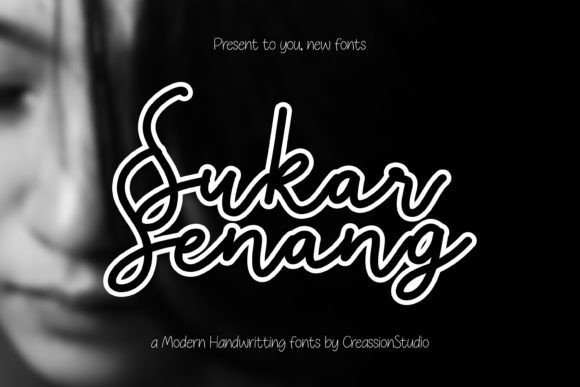
Why Sukar Senang Deserves a Place in Your Branding Toolkit
I remember the moment I first opened a blank brand board for a small café project. The client wanted something warm, personal, and slightly unexpected—a visual identity that felt like a handwritten note left on a coffee cup. That kind of brief calls for a typeface with personality, not a predictable sans serif. That’s when I started testing Sukar Senang, and honestly, it changed how I approached the entire project.
Sukar Senang is one of those Freebies that feels anything but free. It has a handcrafted, expressive quality that lands somewhere between a confident brush stroke and a friendly handwritten letter. The characters carry a natural rhythm, with slight variations in stroke weight that give them an organic, human feel. It is not trying to be perfect, and that is precisely why it works so well for branding projects that need warmth and approachability.
I loaded it into my design software and dropped it onto a logo draft—just the café name in lowercase, set against a simple icon. The result was immediate. The letters felt like they had been written by someone who cared, not generated by an algorithm. That is the kind of energy you want when you are building a brand from scratch.
First Impressions on a Logo Draft
When I test a new Font for client work, I start with the logo. It is the most visible part of a brand identity, and it sets the tone for everything else. Sukar Senang handled the headline treatment beautifully. Its open, airy letterforms kept the wordmark legible even at smaller sizes, which is not always the case with handwritten-style Fonts.
I tried it in all caps for a bolder statement, and then in title case for a more relaxed feel. Both worked, but the lowercase version had a quiet charm that felt right for a café that prides itself on slow mornings and good conversation. The font’s natural spacing meant I did not have to spend extra time kerning individual letter pairs. That saved me hours on a tight deadline.
For the café’s tagline, I paired it with a clean sans serif—something minimal that would not compete with the main headline. The contrast between the expressive Sukar Senang and the neutral supporting type created a clear visual hierarchy. The tagline sat quietly beneath the name, letting the brand name take center stage without feeling crowded.
Building a Full Brand Identity Around It
Once the logo was approved, I moved into the rest of the brand system. Sukar Senang proved to be more versatile than I initially expected. I used it on the café’s menu boards, where the friendly letterforms made the daily specials feel inviting rather than corporate. On the takeaway cup labels, the font added a personal touch that made customers feel like the drink had been prepared just for them.
I also tested it on a small batch of product packaging—a limited run of house-made granola bags. The font sat naturally on the kraft paper labels, printed in a single color to keep production costs low. Even at a small size, the lettering remained readable and retained its handcrafted character. That is a rare combination in display Fonts, and it made me trust Sukar Senang for real commercial work.
Social media graphics came next. I set the font against soft, muted backgrounds on Instagram posts and story templates. The typography became a signature element of the feed, giving every post a cohesive, recognizable look. Followers started to associate the lettering with the café’s atmosphere before they even read the captions.
Readability and Visual Hierarchy in Real Use
One concern I always have with handwritten and display Fonts is readability, especially in longer blocks of text. Sukar Senang is not designed for body copy, and I would not recommend using it for paragraphs or dense editorial sections. But as a headline, accent, or short-form text font, it performs remarkably well.
I tested it on a website hero section, setting the main headline in Sukar Senang with a supporting sans serif for the subheading and navigation. The font drew the eye immediately, and the page felt warm and approachable. The bounce in the letterforms added movement without disrupting readability. I also used it on a flyer for a weekend event—just the event name and date—and it printed cleanly at a large point size.
For longer text, like the café’s story on the back of the menu, I switched to a serif font that complemented the handcrafted feel of Sukar Senang. The serif added structure and readability, while the headline font kept the design lively. Font pairing is where this typeface really shines, because it has enough personality to lead but enough restraint to play well with others.
Practical Observations from Client Work
I have worked with plenty of Fonts that look beautiful in the specimen sheet but fall apart when you put them on a real mockup. Sukar Senang held up across multiple formats—business cards, signage, digital ads, and even a short video title sequence. The letterforms stayed consistent, and the spacing remained balanced.
Whether you are working on a brand identity for a local restaurant, a set of packaging labels for a handmade product line, or a visual refresh for your own creative studio, this font brings a genuine, human touch to your designs. It is the kind of typeface that makes people stop scrolling, read the headline, and remember the brand behind it.